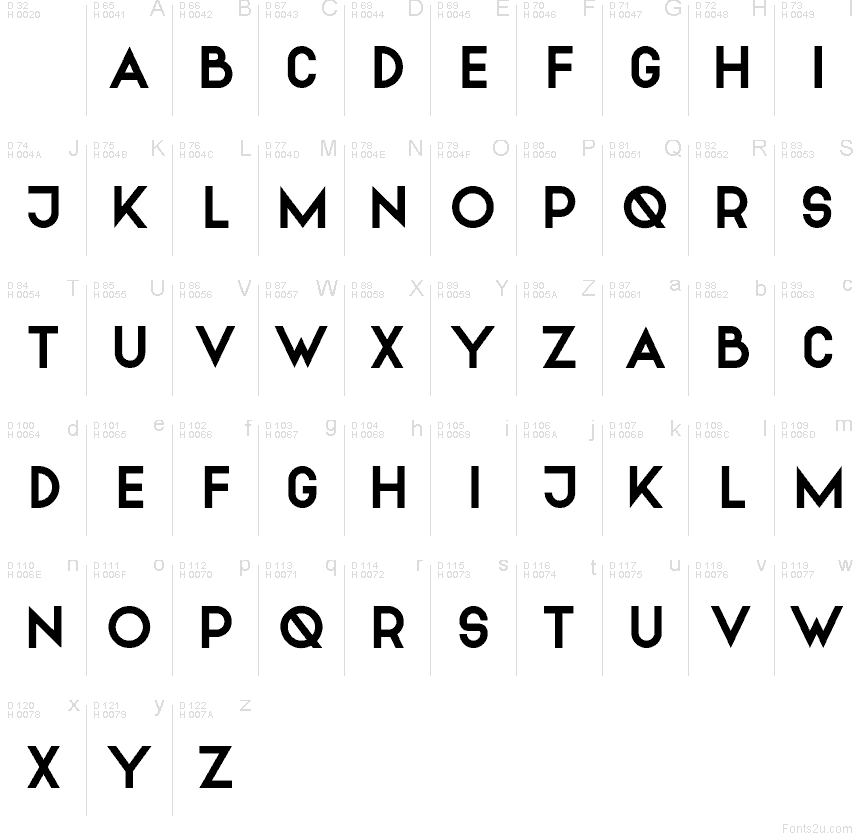
Conventionality Book by Vladimir Nikolic is a free geometric display font with an architectural build. Broad circular forms meet pointed diagonals, and changing stroke widths give the letters a crisp, cut-paper quality. Clipped corners keep the silhouette distinctive.
Fashion labels are an especially good fit. Its dramatic geometry also suits cultural posters, album artwork, and magazine covers. The recurring triangles can echo angular logos or geometric illustration, turning the lettering into part of the brand motif.